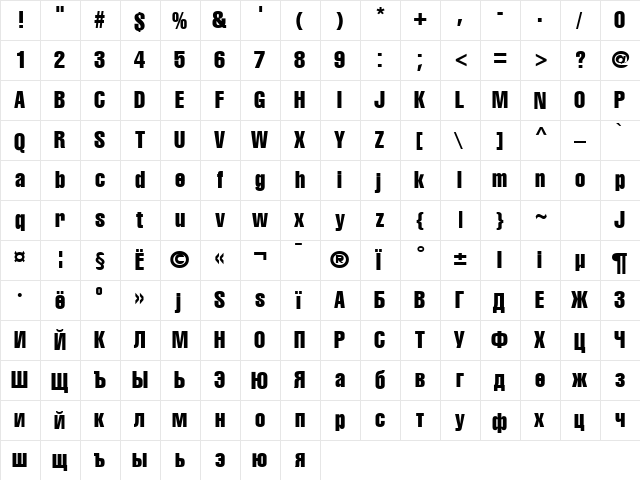
A1012HelvetikaCmprs TYGRA Compress Font Preview
A1012HelvetikaCmprs TYGRA Compress
Design Context for A1012HelvetikaCmprs TYGRA Typeface
A1012HelvetikaCmprs TYGRA offers clean, dependable letterforms without strong stylistic allegiance, making it a practical choice for designers who need flexibility.